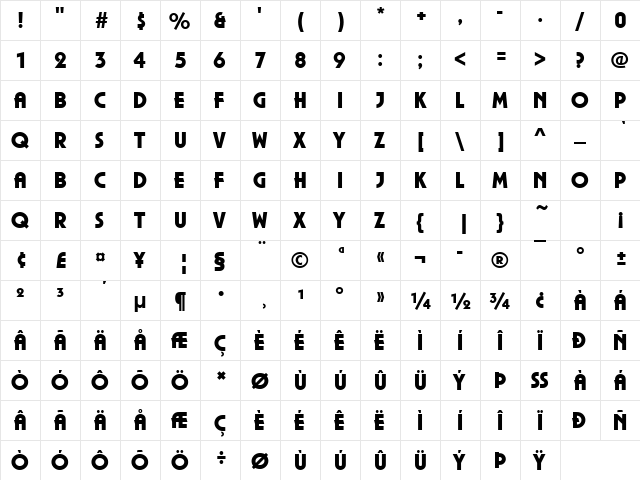
PlazaDUlt Regular
Design Context for PlazaDUlt Typeface
PlazaDUlt takes a measured approach to typography — its balanced proportions and neutral character make it a reliable workhorse for both digital and print work.